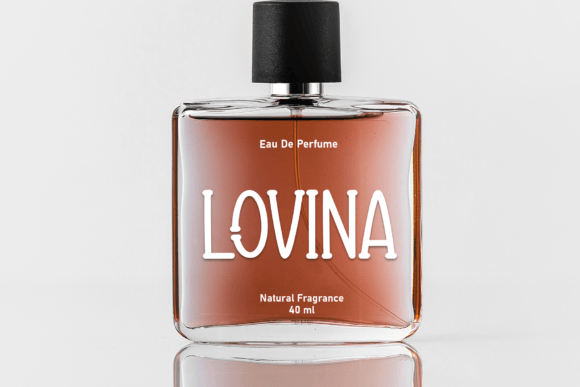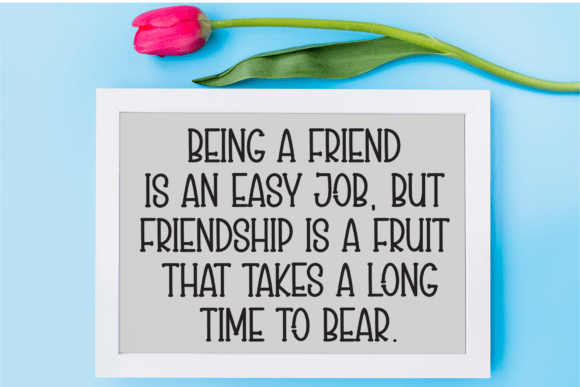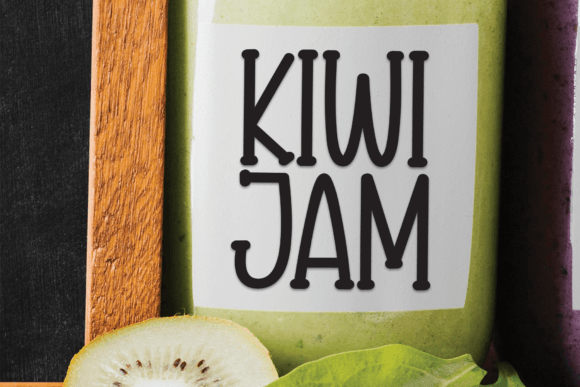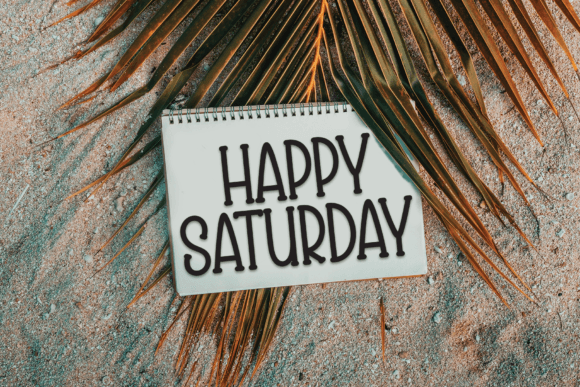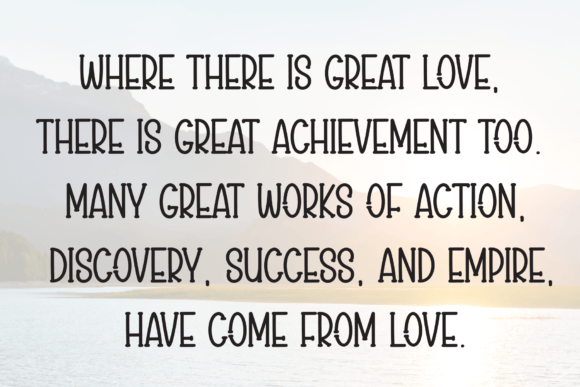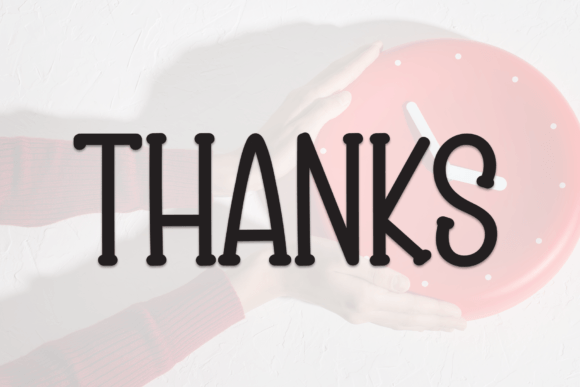
Discover the Best Timing Font for Your Creative Projects
Are you on the hunt for a font that embodies sweetness, affability, and a touch of playfulness? Look no further! Introducing the charming allure of a handwritten display font, an embodiment of sweetness and affability. With its adorable and lively characteristics, this font is a perfect choice for scripting wedding invitations, embellishing greeting cards, or giving any creative design a sprightly twist!
The Power of Handwritten Fonts
Handwritten fonts have a unique ability to add a personal touch to any design project. They evoke feelings of warmth, friendliness, and approachability, making them perfect for a wide range of applications, from wedding stationery to social media graphics. The best timing font, in particular, is a standout in the world of handwritten fonts, offering a distinctive blend of charm and sophistication.
What Makes the Best Timing Font So Special?
So, what sets the best timing font apart from other handwritten fonts? Here are just a few of its standout features:
• Adorable and lively characteristics: This font is bursting with personality, making it perfect for designs that need a bit of flair and whimsy.
• Sweet and affable vibe: The best timing font has a warm and inviting feel that’s sure to capture the hearts of your audience.
• Perfect for creative designs: Whether you’re working on a wedding invitation, greeting card, or social media graphic, this font is sure to add a touch of magic to your design.
Using the Best Timing Font in Your Designs
So, how can you use the best timing font in your designs? Here are a few ideas to get you started:
• Wedding invitations: Add a touch of romance and whimsy to your wedding stationery with this beautiful handwritten font.
• Greeting cards: Make your greeting cards stand out with a font that’s both playful and heartfelt.
• Social media graphics: Add a bit of personality to your social media graphics with this fun and lively font.
• Branding and packaging: Use the best timing font to add a touch of warmth and approachability to your brand’s packaging and marketing materials.
Tips for Pairing the Best Timing Font with Other Fonts
When pairing the best timing font with other fonts, here are a few tips to keep in mind:
• Contrast with a serif font: Pair the best timing font with a serif font for a beautiful contrast that adds depth and interest to your design.
• Match with a script font: For a more cohesive look, pair the best timing font with another script font that shares similar characteristics.
• Use a bold font for headings: Use a bold font for headings and the best timing font for body text to create a clear visual hierarchy.
In conclusion, the best timing font is a versatile and charming handwritten display font that’s perfect for a wide range of creative projects. With its adorable and lively characteristics, sweet and affable vibe, and endless possibilities for use, this font is sure to become a favorite in your design toolkit. So why wait? Download the best timing font today and start adding a touch of whimsy and personality to your designs!